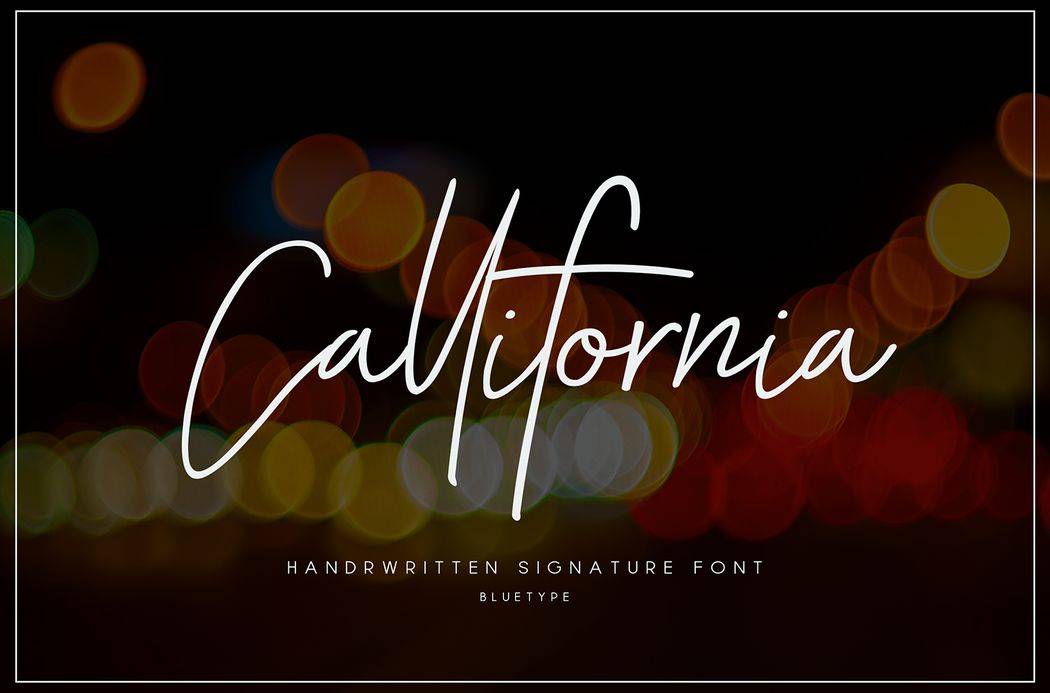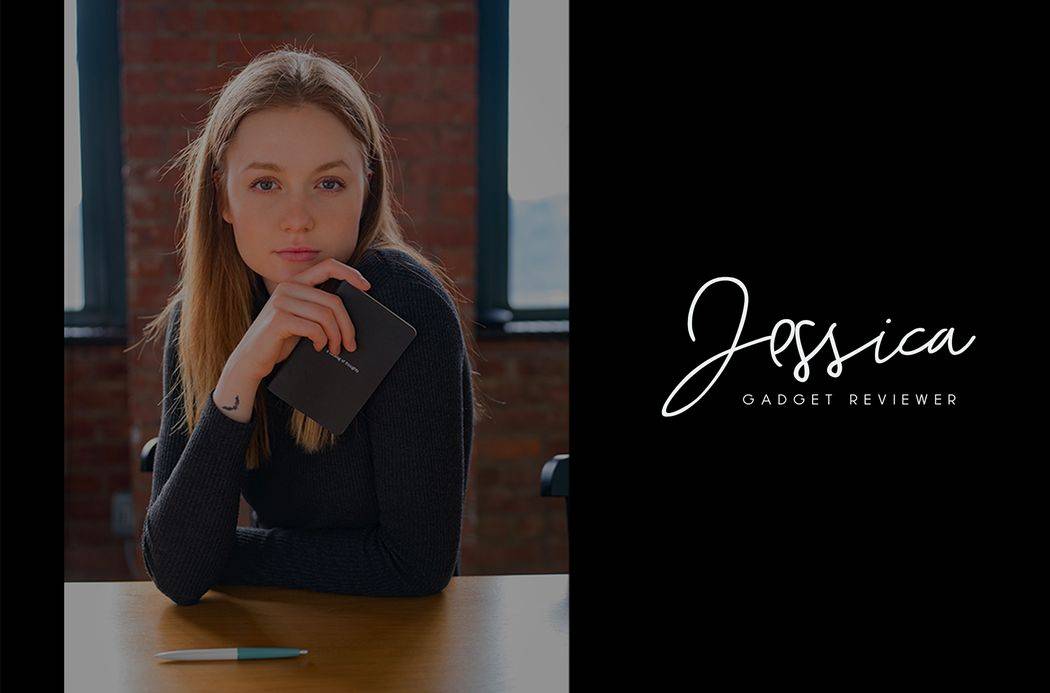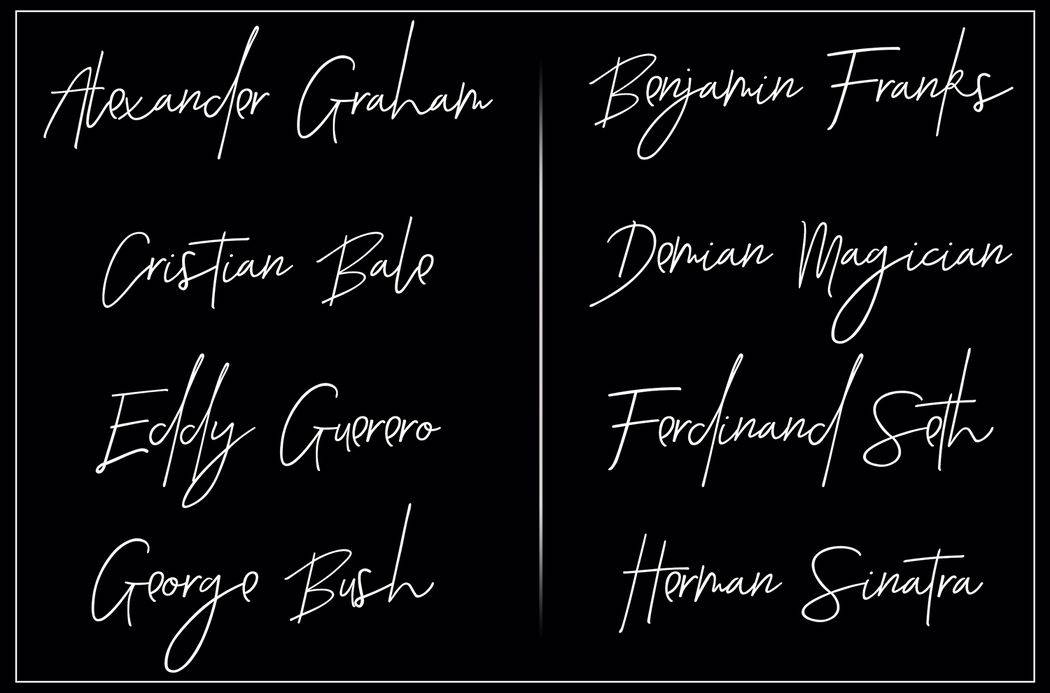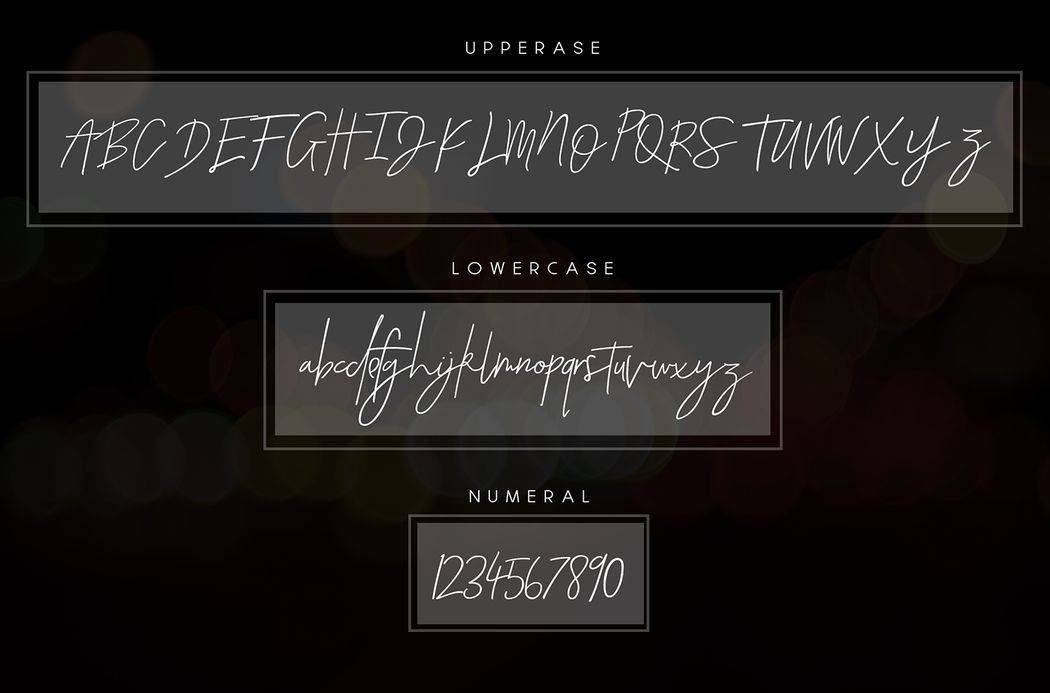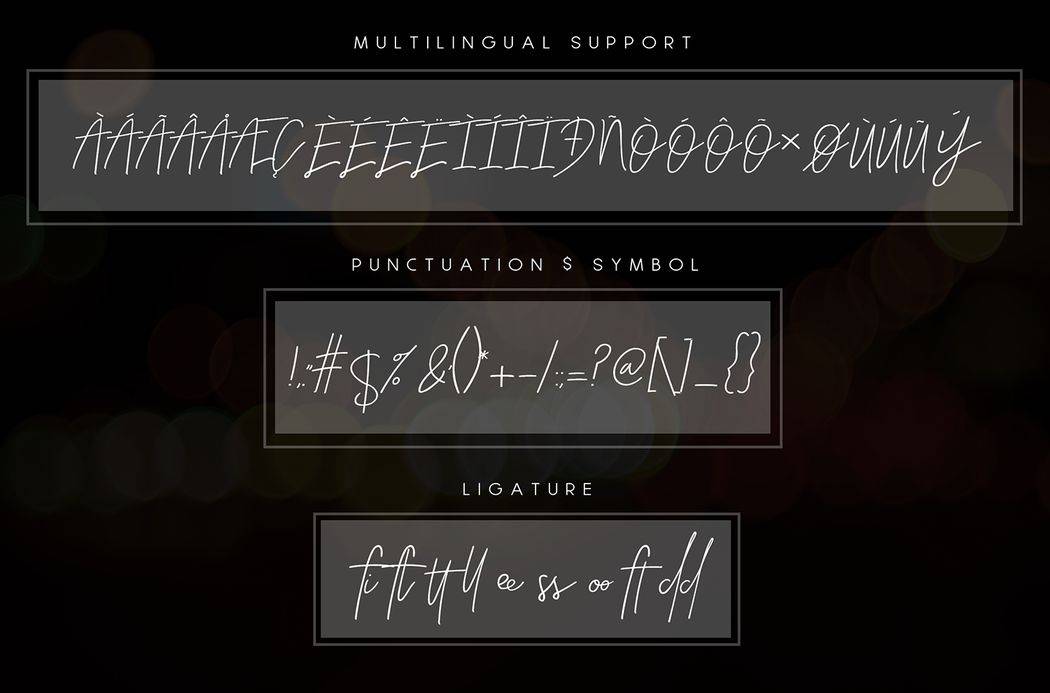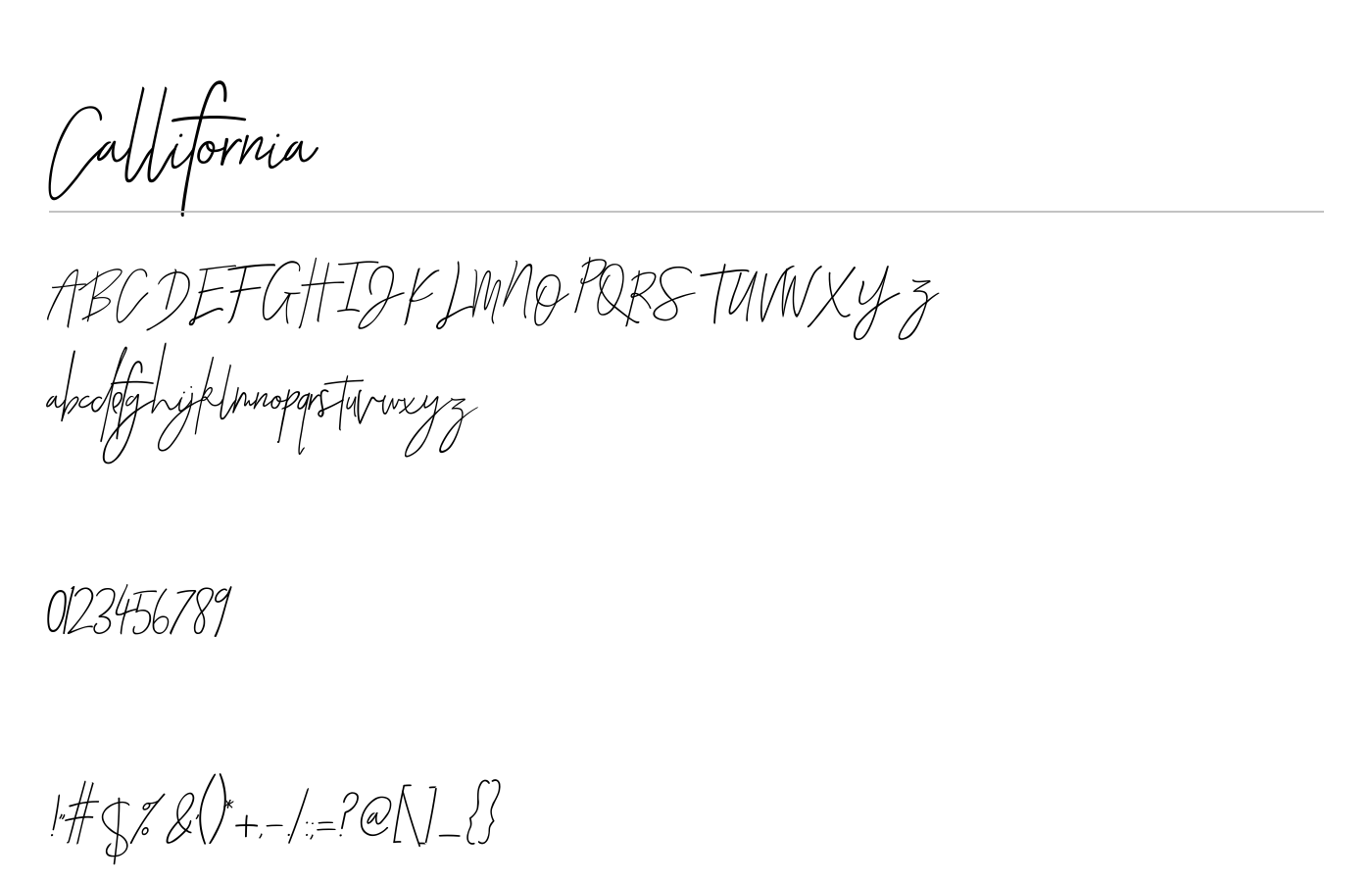
Callifornia is a delicate, handwritten script font with a tall, narrow structure and elegant, flowing strokes. Its thin lines and casual yet refined style give it a modern, personal feel, perfect for adding a touch of sophistication and warmth to invitations, branding, and creative projects. This font works best in designs that seek to express elegance with a playful, approachable personality.
Callifornia Font
About Callifornia Font